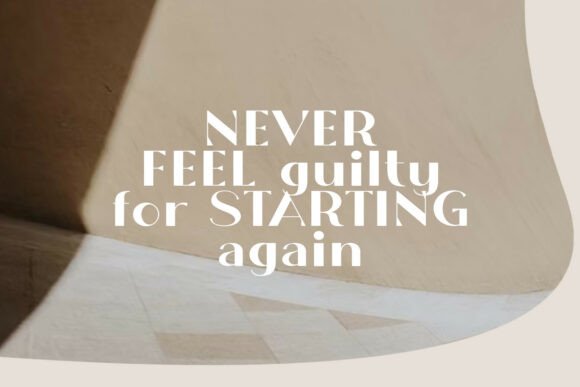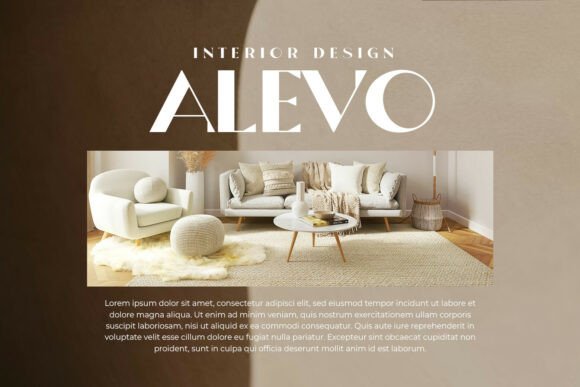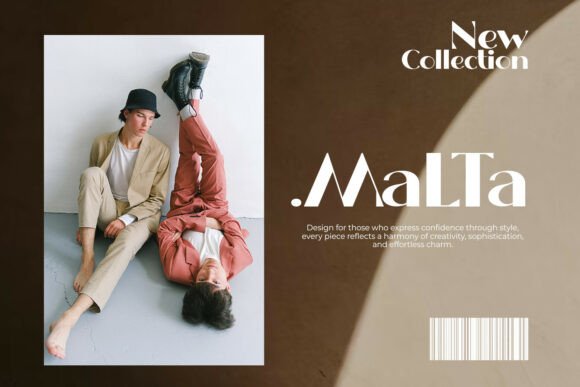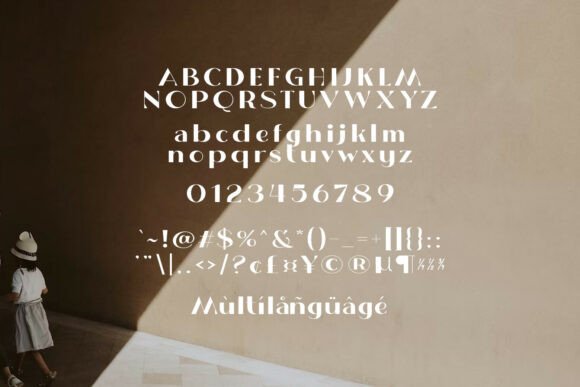
Introducing Casova Font: The Epitome of Sophistication and Elegance
In the realm of typography, few fonts manage to strike a balance between timeless sophistication and contemporary style. However, Casova Font, also known as Vanceo, is a remarkable exception. This exquisite serif font is meticulously crafted for creators who demand the highest level of confidence and class in their typography. With its refined contrast, sharp serifs, and perfectly balanced proportions, Vanceo is an ideal choice for those seeking to elevate their designs to new heights of luxury and elegance.
The Characteristics of Vanceo: A Masterclass in Typography
Vanceo boasts an array of characteristics that set it apart from other fonts. Its refined contrast creates a sense of visual harmony, while its sharp serifs add a touch of sophistication and refinement. The font’s perfectly balanced proportions ensure that every letter and word is beautifully proportioned, making it a joy to read and behold. Whether used in bold titles or integrated into stylish layouts, Vanceo brings an unmistakable sense of refinement to any design.
Endless Applications for Vanceo: Where Elegance Meets Versatility
One of the most significant advantages of Vanceo is its versatility. This luxurious font excels in a wide range of applications, including:
• Branding: Create a lasting impression with Vanceo’s elegant and sophisticated typography, perfect for high-end brands seeking to establish a premium image.
• Logos: Make a statement with Vanceo’s bold and refined lettering, ideal for logos that demand attention and sophistication.
• Fashion Projects: Elevate your fashion designs with Vanceo’s luxurious and editorial aesthetic, perfect for showcasing high-end fashion brands or creating stylish layouts.
• Invitations: Add a touch of elegance to your invitations with Vanceo’s refined and sophisticated typography, ideal for weddings, galas, and other high-end events.
• Websites: Enhance your website’s typography with Vanceo’s beautiful and readable font, perfect for creating a premium online presence.
• High-End Social Media Visuals: Stand out on social media with Vanceo’s luxurious and attention-grabbing typography, ideal for creating stunning visuals that demand attention.
The Benefits of Using Vanceo: Why Designers and Crafters Love This Font
So, why do designers and crafters love Vanceo? Here are just a few benefits of using this exceptional font:
• Instantly Elevates Designs: Vanceo’s luxurious and sophisticated typography instantly elevates any design, making it perfect for creators seeking to make a lasting impression.
• Perfect for High-End Projects: Vanceo’s refined and elegant aesthetic makes it an ideal choice for high-end projects that demand the highest level of sophistication and class.
• Versatile and Adaptable: Vanceo’s versatility makes it suitable for a wide range of applications, from branding and logos to fashion projects and websites.
• Beautifully Crafted: Every curve and line in Vanceo is beautifully crafted to deliver both clarity and beauty, making it a joy to use and behold.
Conclusion: Experience the Elegance and Sophistication of Vanceo
In conclusion, Vanceo, also known as Casova Font, is a truly exceptional serif font that offers a unique blend of timeless sophistication and contemporary style. With its refined contrast, sharp serifs, and perfectly balanced proportions, this luxurious font is perfect for creators seeking to elevate their designs to new heights of elegance and refinement. Whether used in branding, logos, fashion projects, or websites, Vanceo brings an unmistakable sense of refinement and sophistication that is sure to leave a lasting impression.